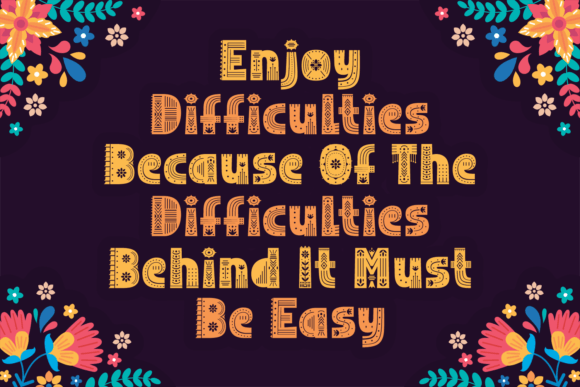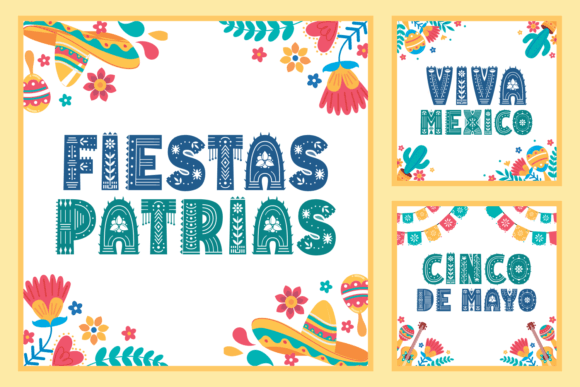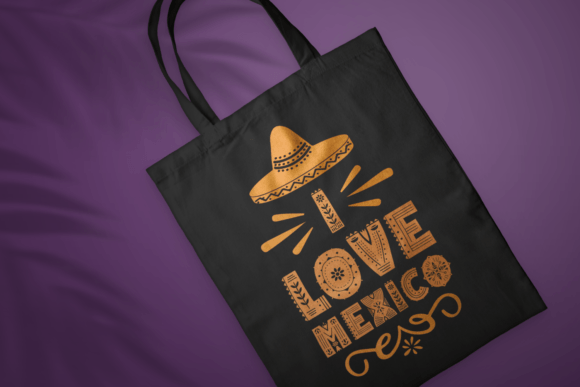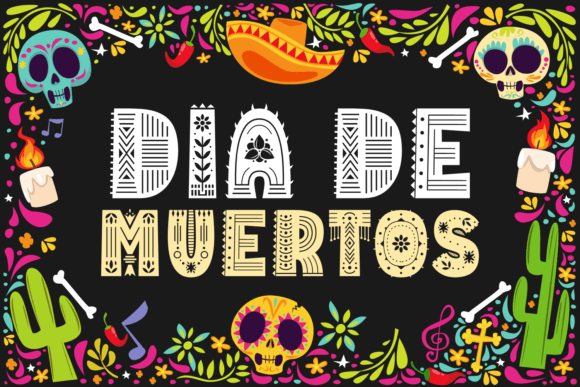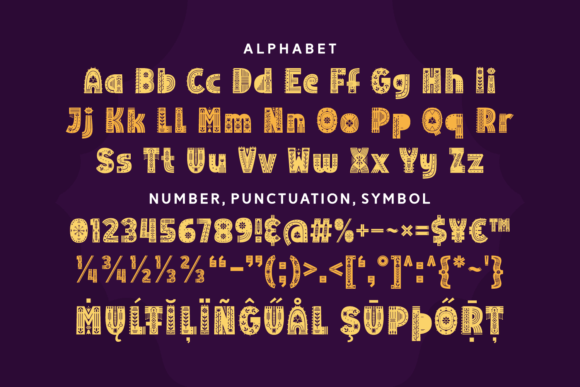
Introduction to Kova Mexico Font
Kova Mexico is a vibrant and playful decorative font inspired by Mexican culture.
The letters feature colorful patterns and designs reminiscent of traditional Mexican textiles, with elements like cacti, sombreros, and chili peppers adding to the festive feel This font is perfect for adding a touch of fun and personality to any design related to Mexico or Latin America.
Key Features of Kova Mexico Font
Why Choose Kova Mexico Font?